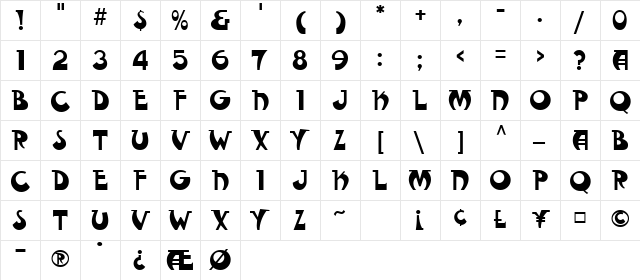
Fantastic MF Modern
| Style | Modern |
Design Context for Fantastic MF Typeface
Fantastic MF is a composed and adaptable typeface that performs quietly and consistently across a wide range of design contexts.